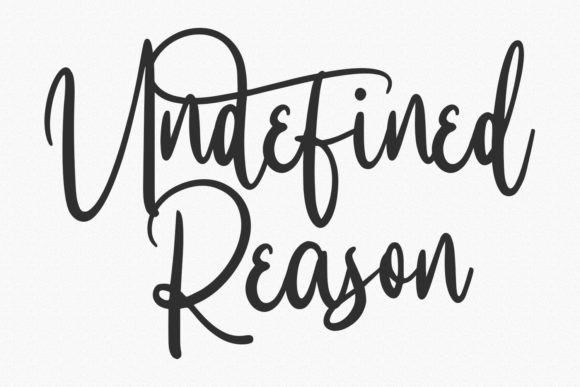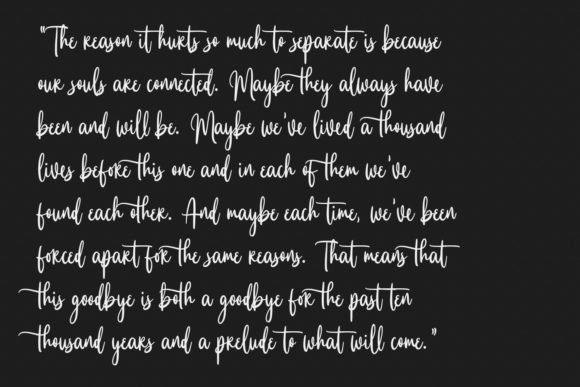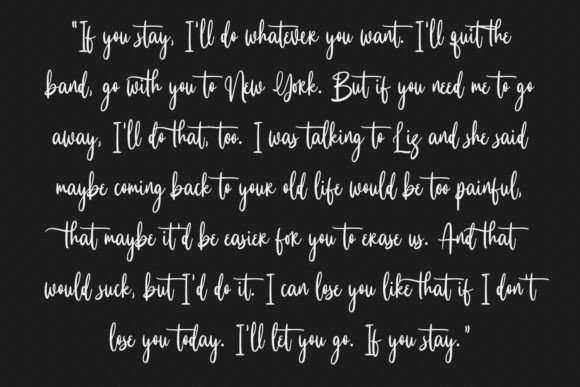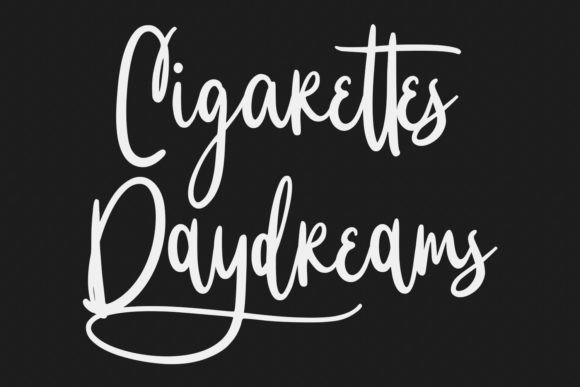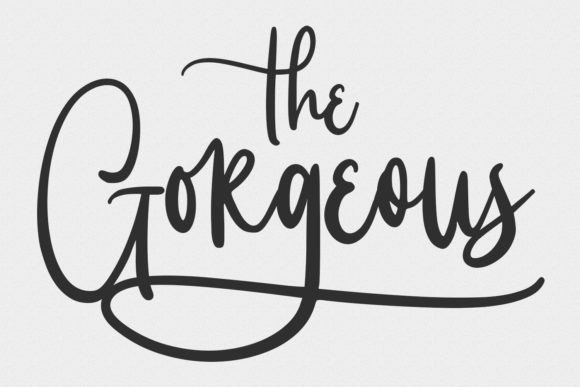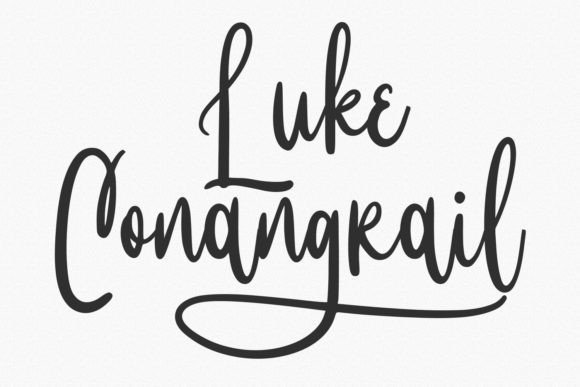
The Everblast Font: A Modern Script Powerhouse
Have you ever been in the middle of a design project, and suddenly, you’re stuck on finding the perfect font? I recall a recent experience where I was working on a logo design for a trendy new cafe, and I just couldn’t find a script font that captured the right vibe. That’s when I stumbled upon the Everblast font, and let me tell you, it was love at first sight! 💕
What is Everblast Font?
Everblast is a modern script font that boasts light contrast strokes, a fun character with a bit of ligature, and alternates to give you extra creative freedom. It’s perfect for a variety of design projects, including logo design, social media graphics, movie titles, book covers, and even long texts. This font pairs beautifully with sans or serif fonts, making it an excellent choice for secondary text.
What I Love About Everblast ✨
- ✅ Unique Character: Everblast has a distinct personality that sets it apart from other script fonts.
- ✅ Light Contrast Strokes: The subtle contrast strokes add a touch of elegance to any design.
- ✅ Ligatures and Alternates: The font comes with a range of ligatures and alternates, giving you plenty of creative options.
- ✅ Versatility: Everblast works beautifully for both short and long texts, making it a versatile addition to your font library.
- ⚠️ Some Ligatures Can Be Finicky: Occasionally, certain ligatures might not work as expected, requiring a bit of manual adjustment.
- ⚠️ Not Ideal for Tiny Text: Due to its script nature, Everblast might not be the best choice for very small text sizes, as it can become difficult to read.
While the exact origins of Everblast are shrouded in mystery, it’s clear that the designer aimed to create a font that’s both modern and versatile. Imagine a designer who wanted to craft a font that could be used for anything from movie titles to personal branding, with a dash of fun and creativity. That’s Everblast in a nutshell!
Q: What makes Everblast suitable for logo design?
A: Everblast’s unique character, ligatures, and alternates make it perfect for creating distinctive and memorable logos.
Q: Can I use Everblast for body text?
A: While Everblast is versatile, it’s best used as an accent or secondary text font due to its script nature. For long body text, a sans or serif font might be more readable.
Q: Does Everblast support OpenType features?
A: Yes, Everblast supports OpenType features, including ligatures and stylistic alternates, which can be accessed in compatible design software.
Q: Is Everblast suitable for digital and print designs?
A: Absolutely! Everblast’s clear and elegant design makes it suitable for both digital and print projects, from social media graphics to book covers and more.